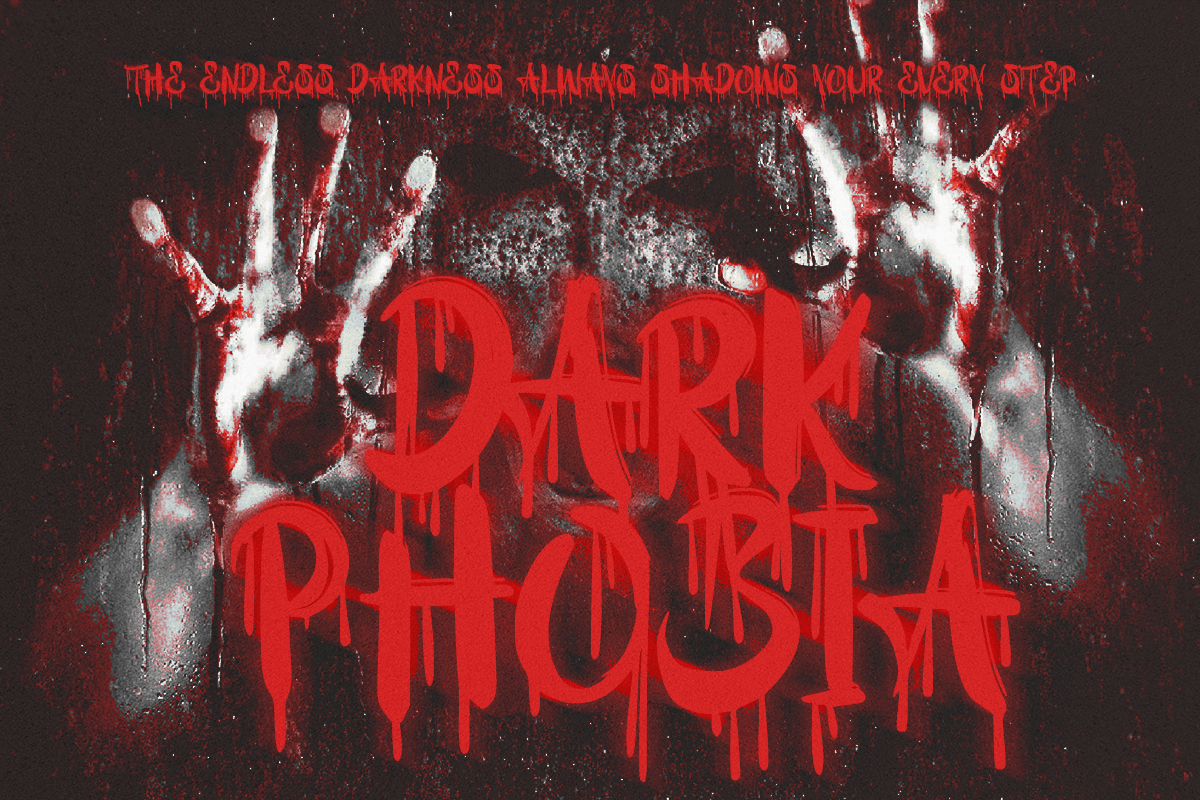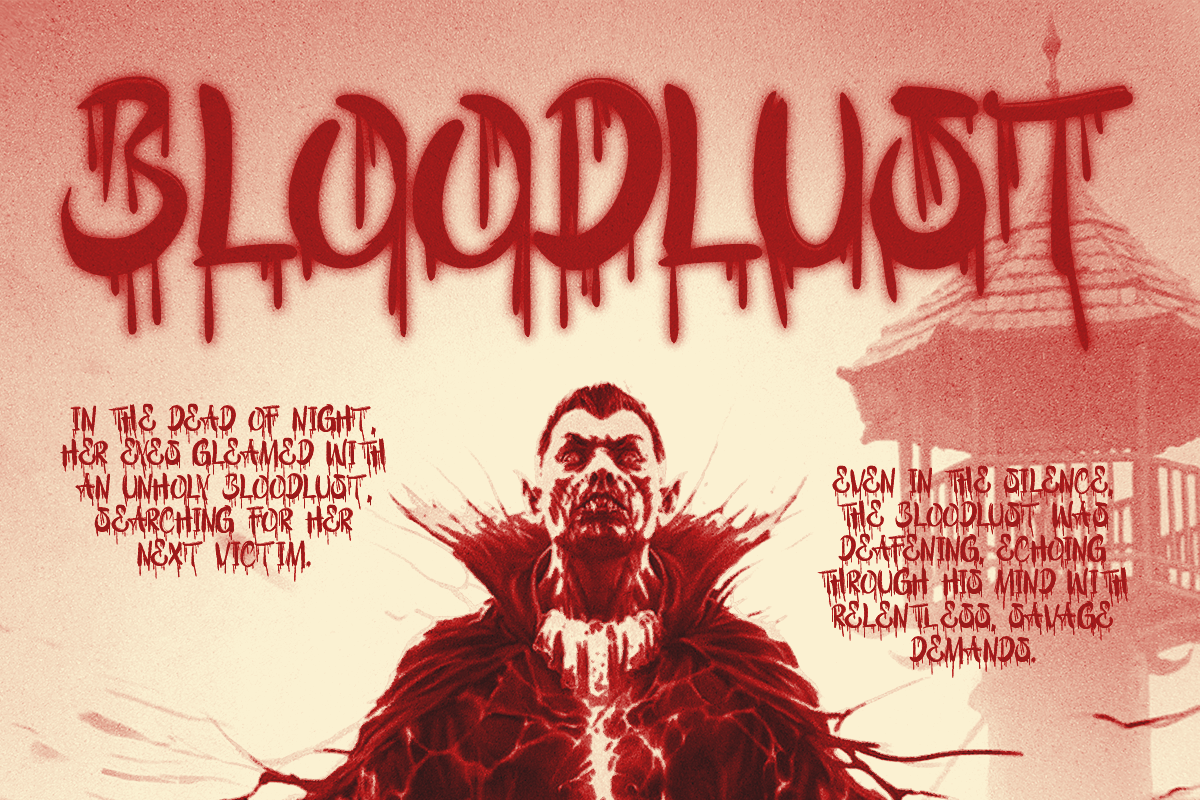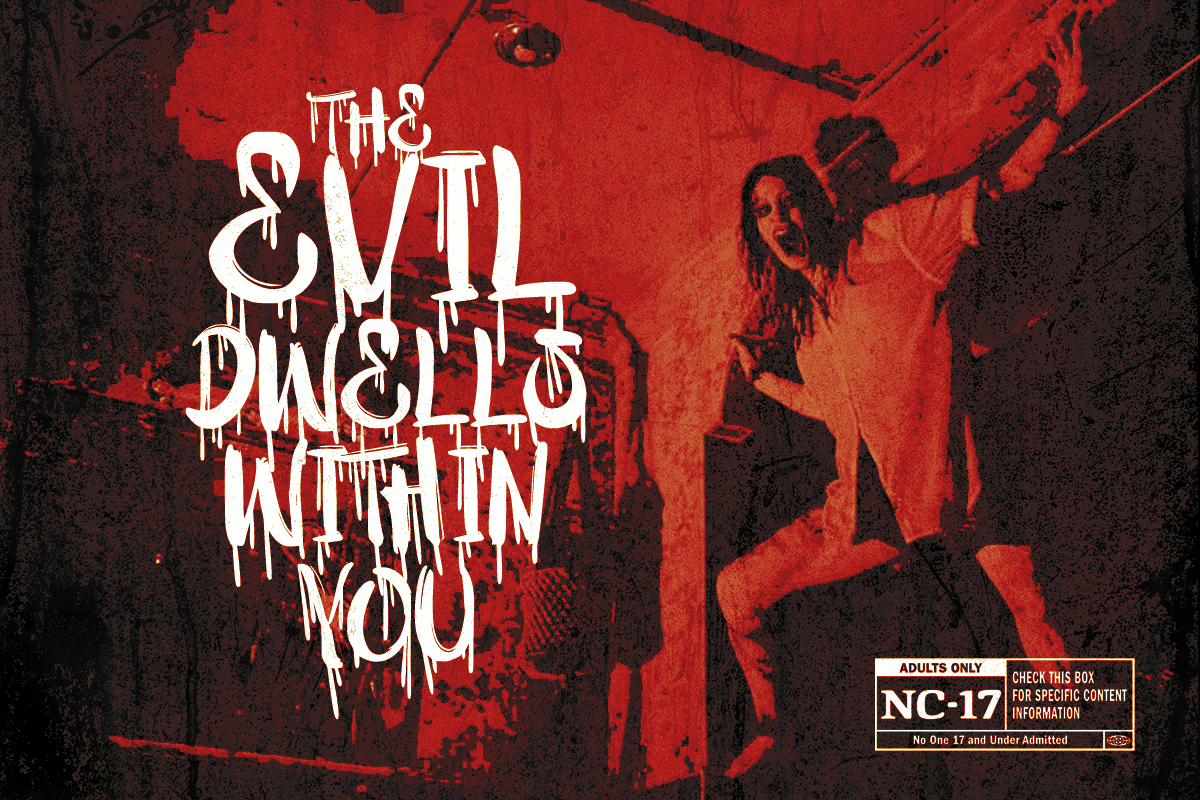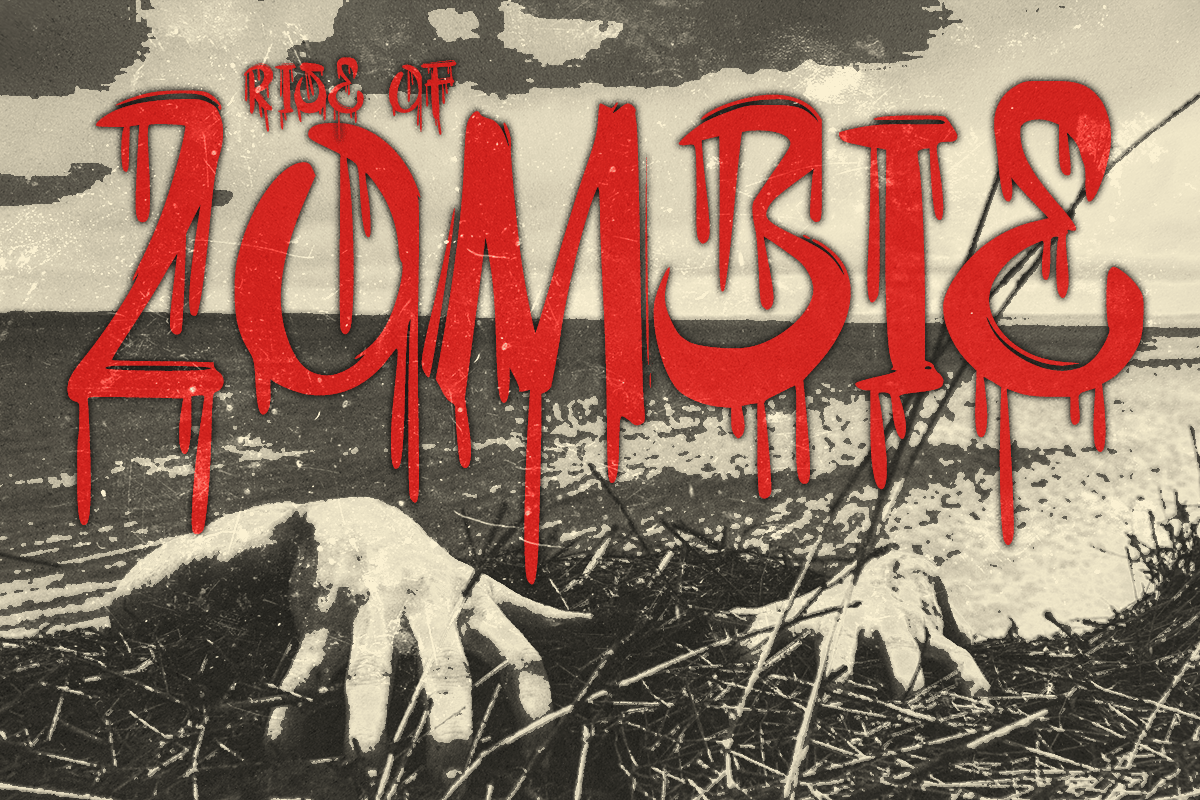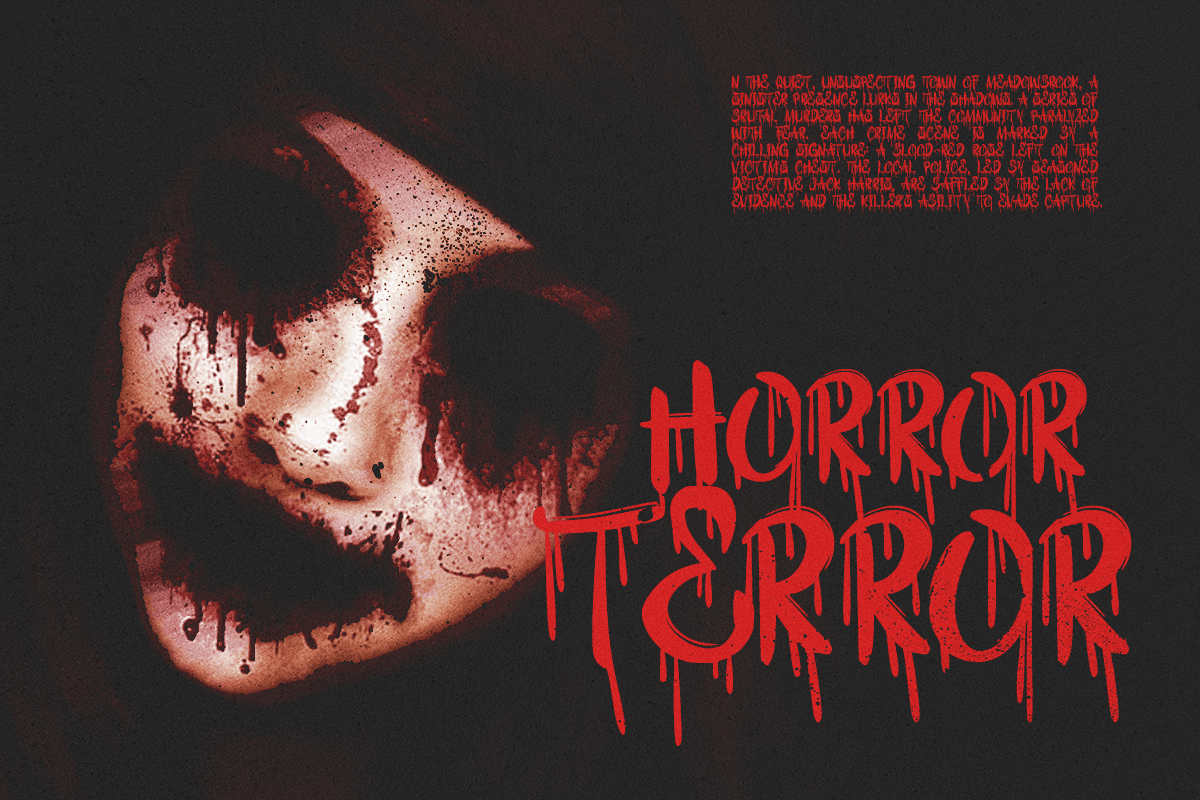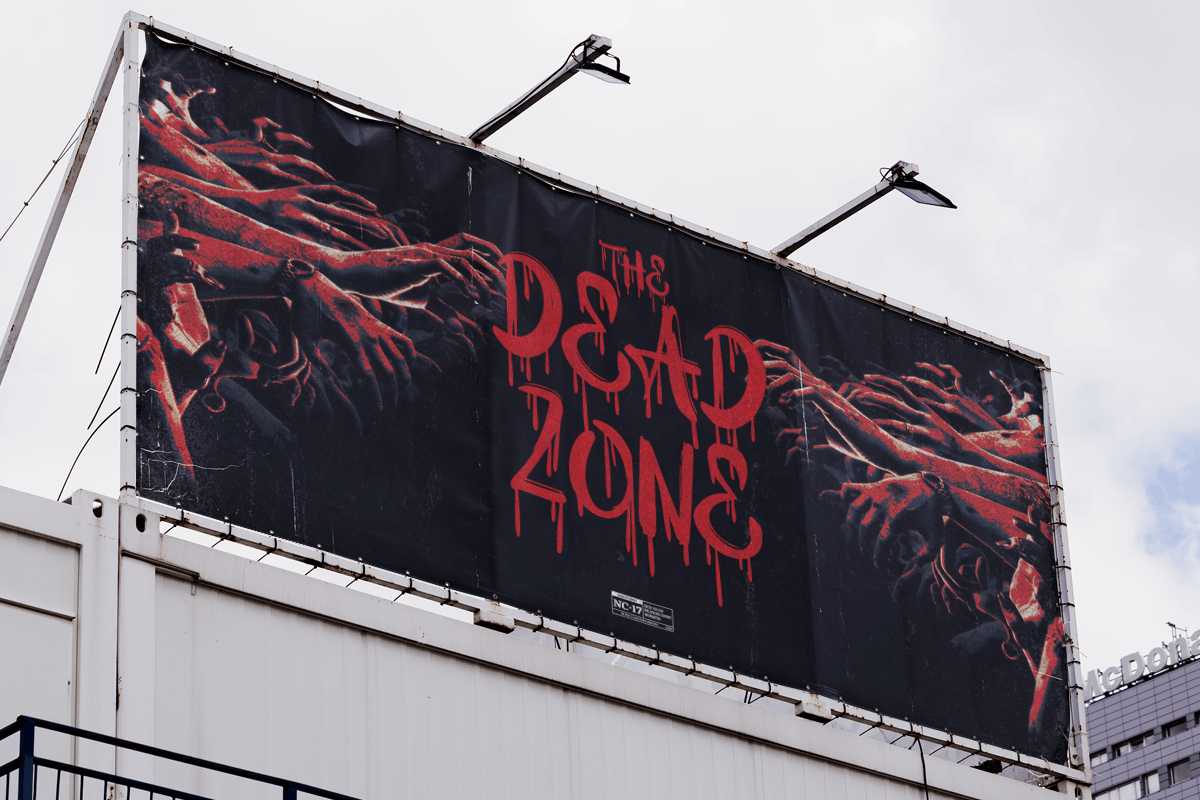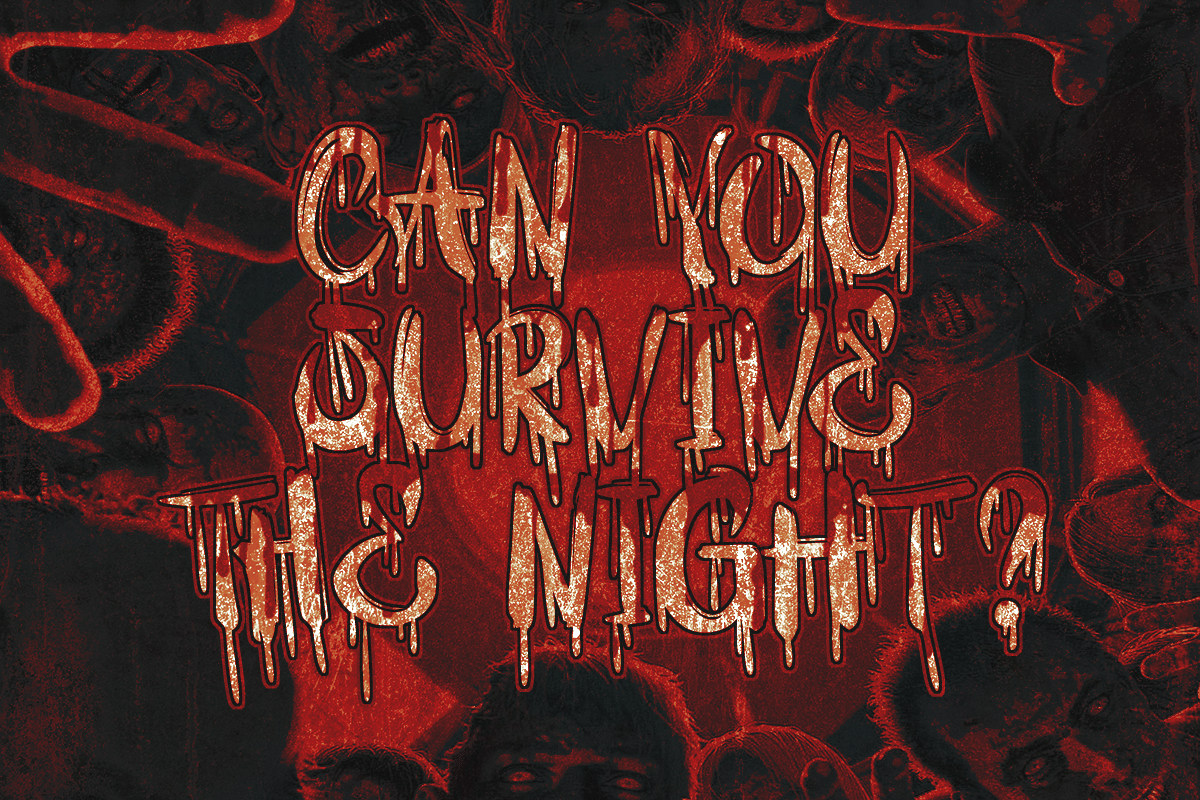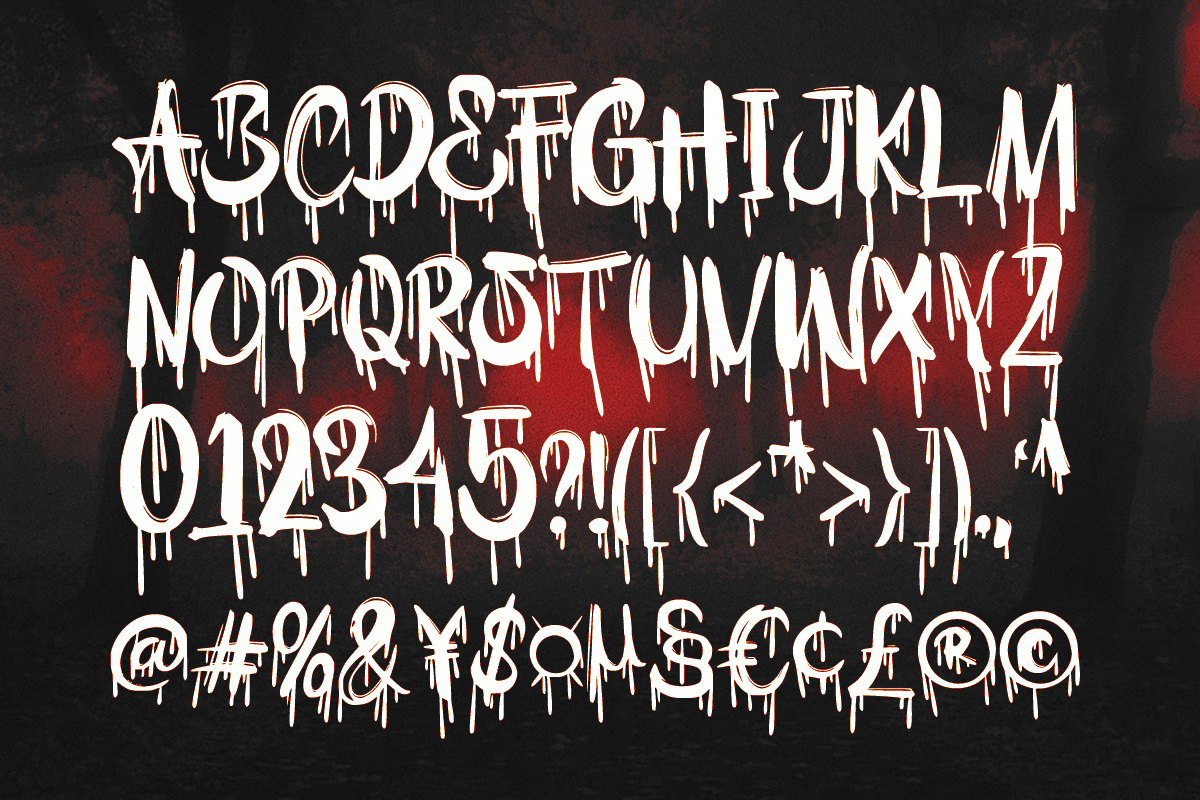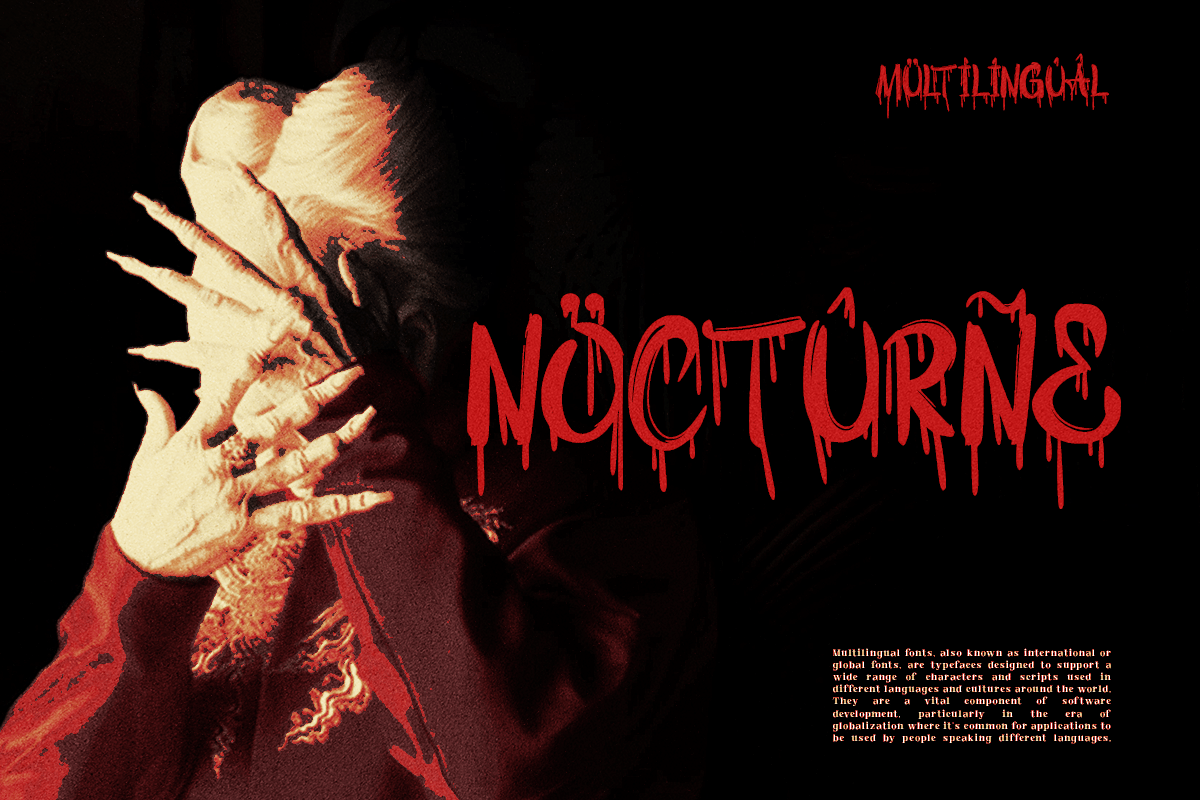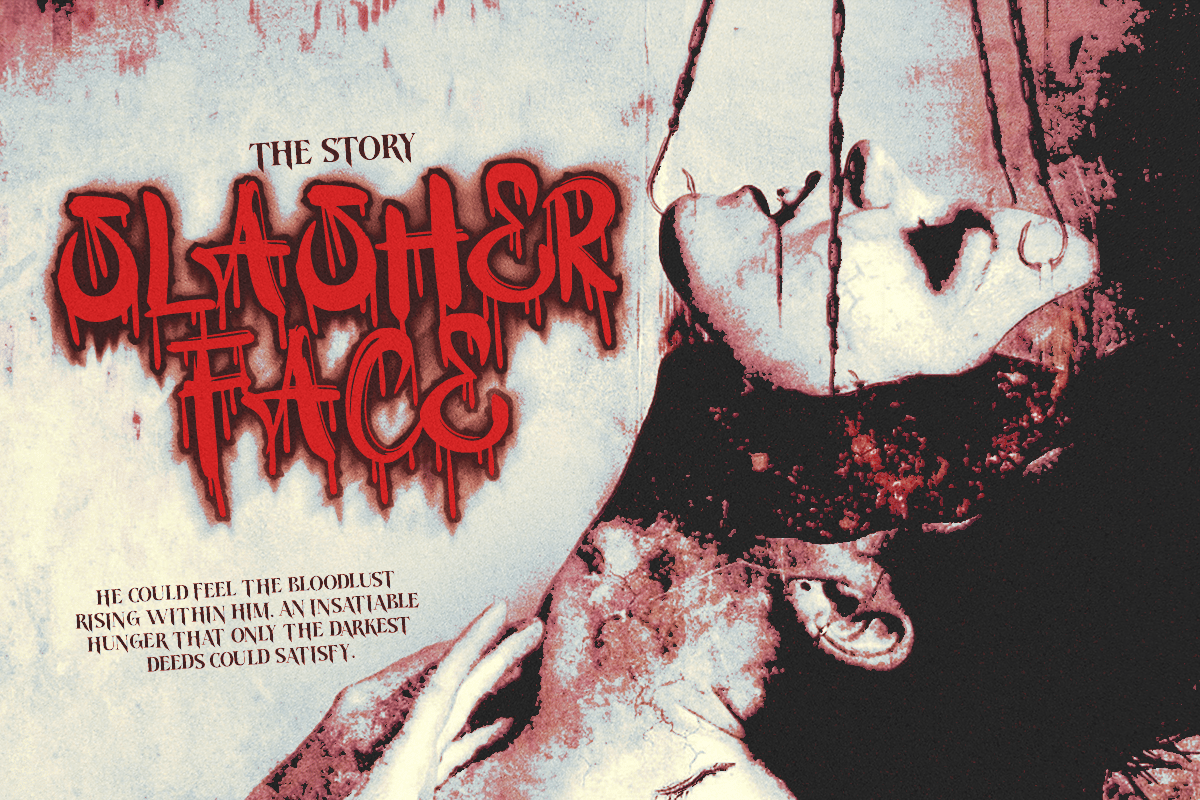
Bloody Shout – Creepy Horror Font
Introducing Bloody Shout, a bloody horror display font that drips with horror and oozes festive charm. Perfect for all your blood-soaked, Halloween-themed designs, Bloody Shout combines the readability of modern fonts with a wickedly fun and dripping
Whether you’re crafting spine-chilling posters, eerie invitations, or spooky social media graphics, this font adds a touch of mystery and excitement to any project. Let Bloody Shout transform your creative work, infusing it with the dark allure of Halloween and a dash of playful terror.